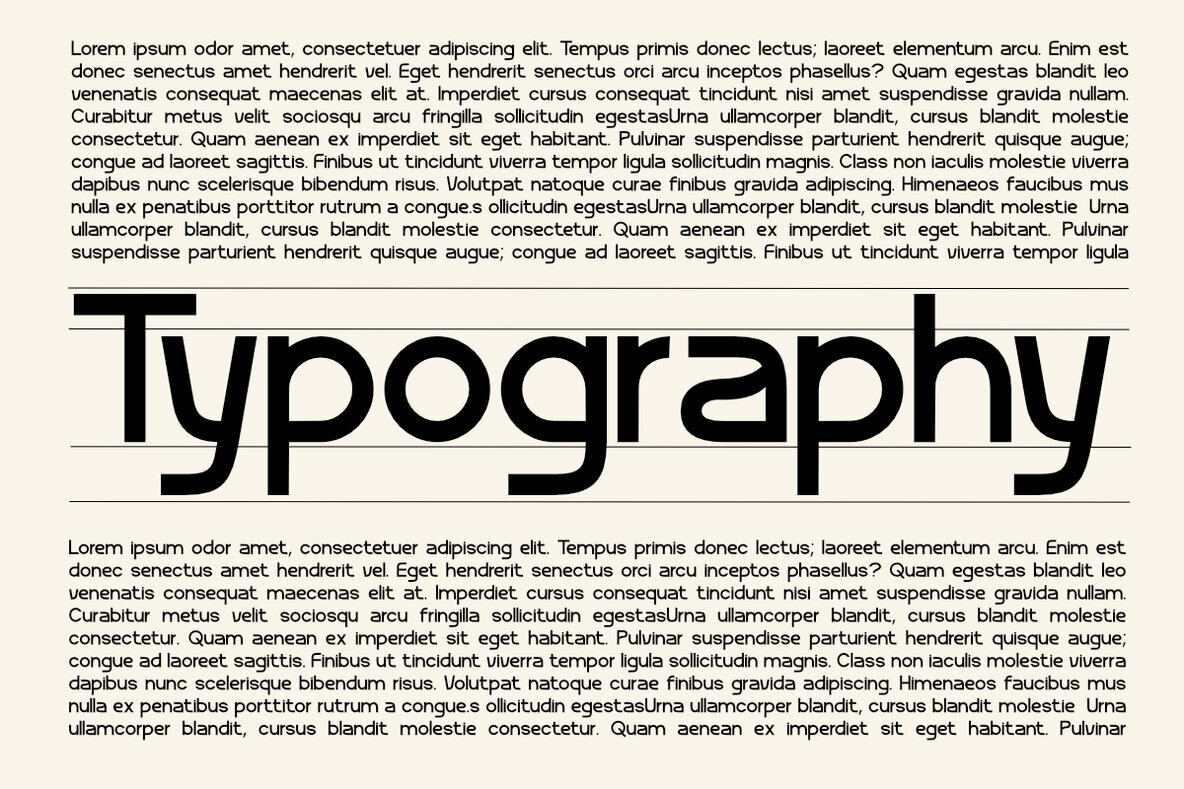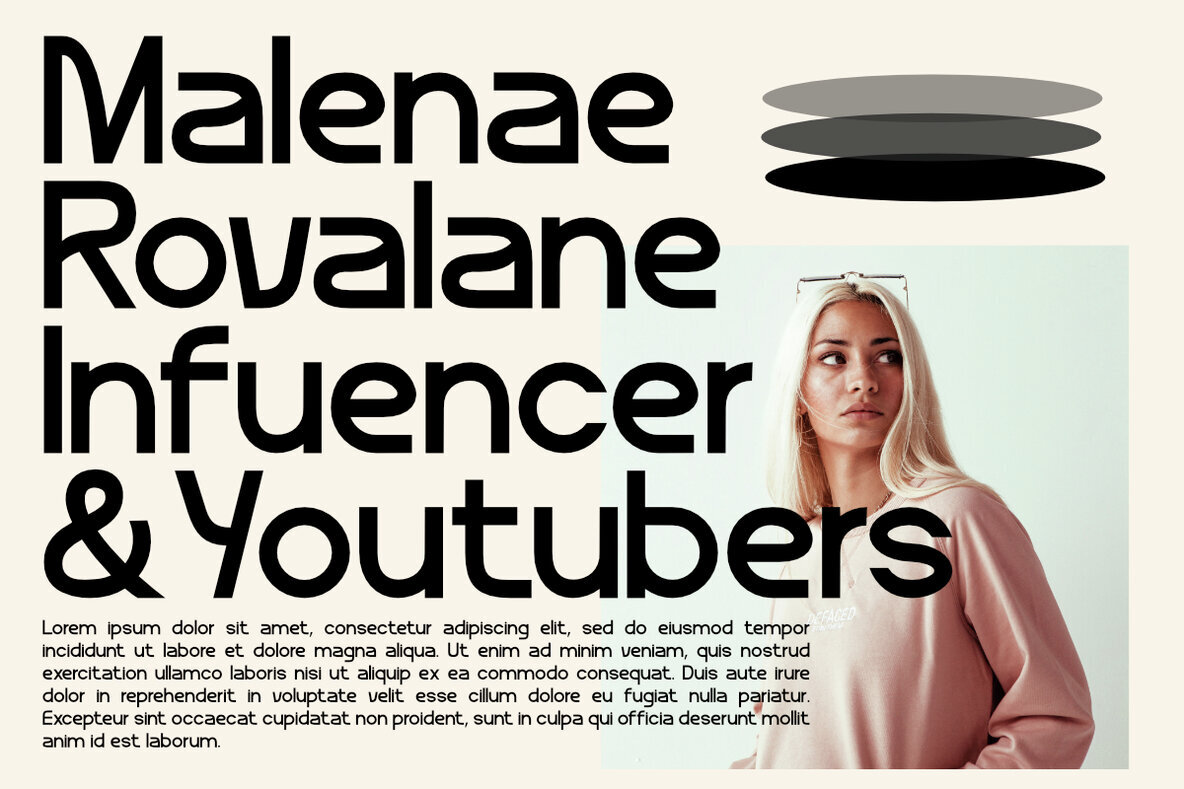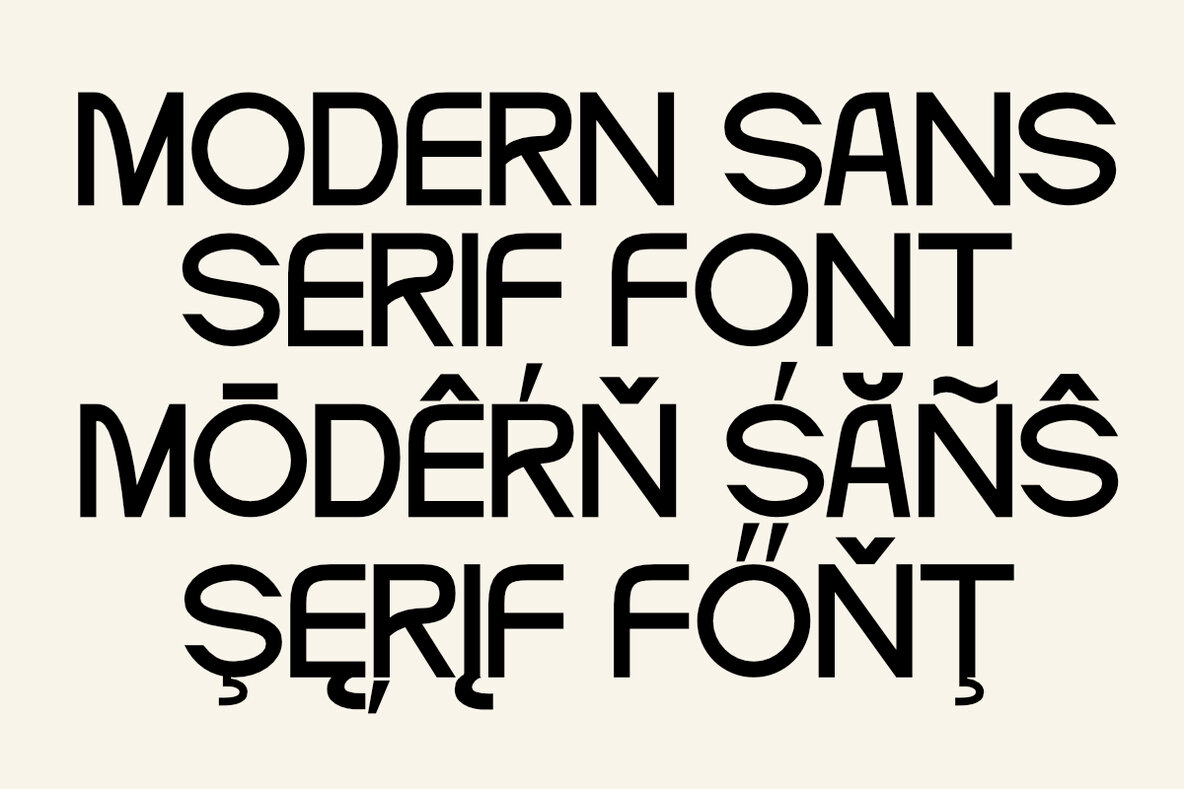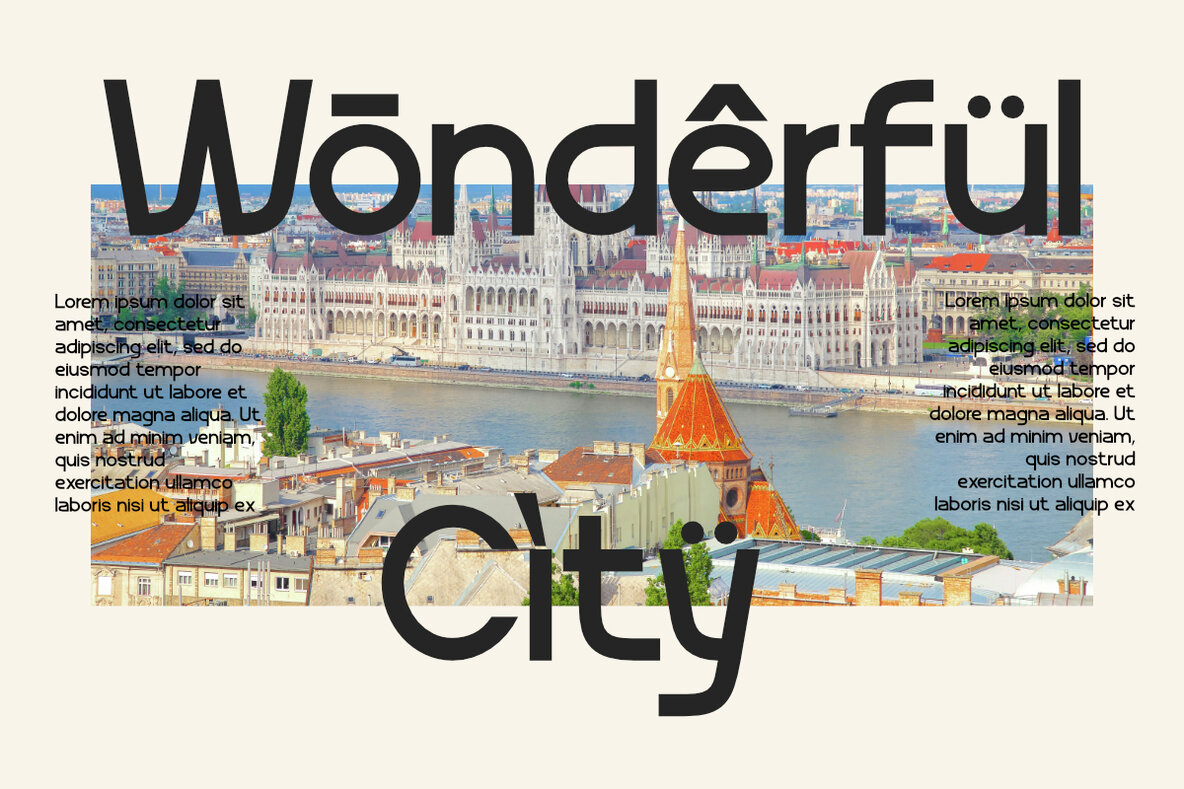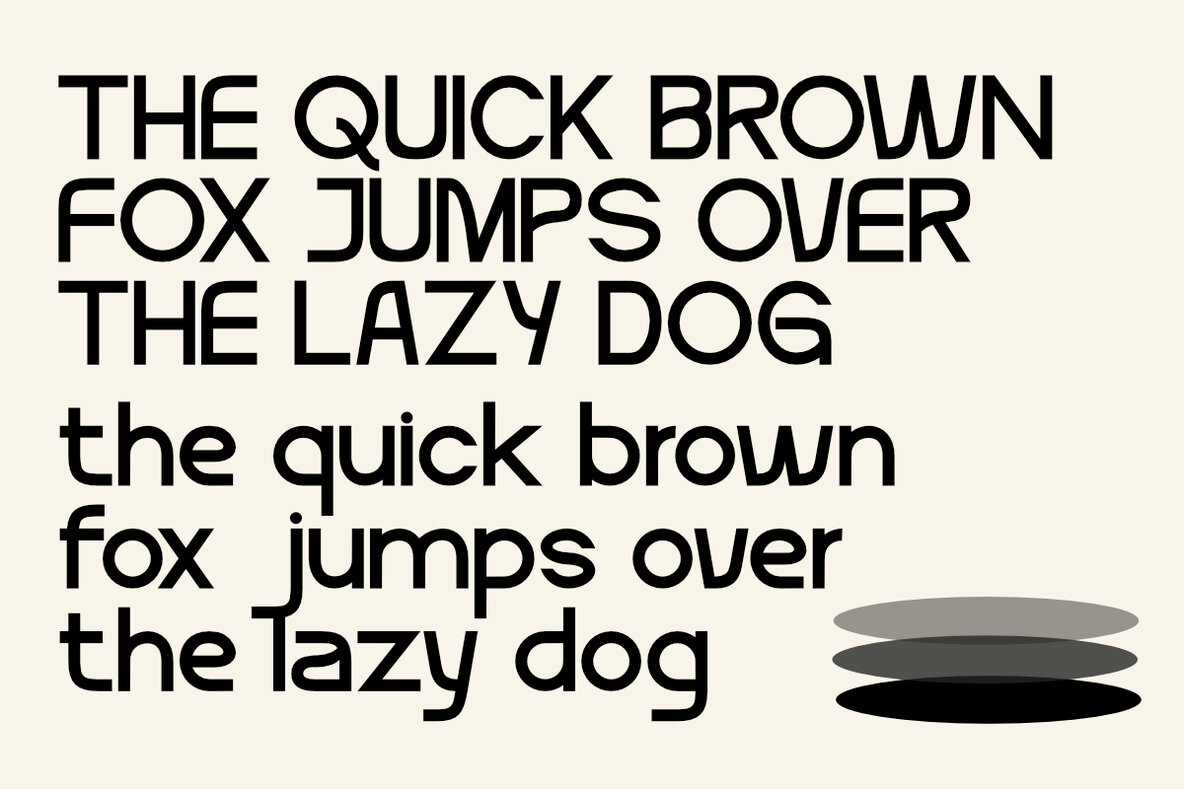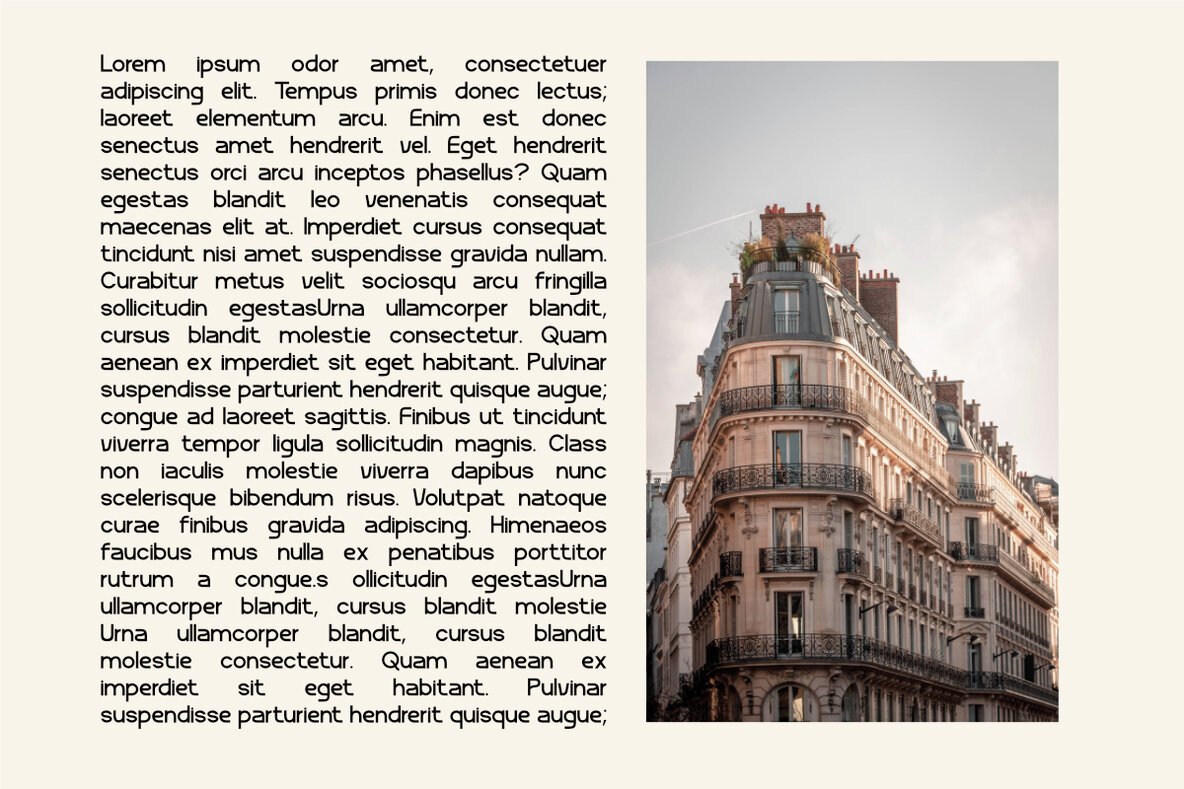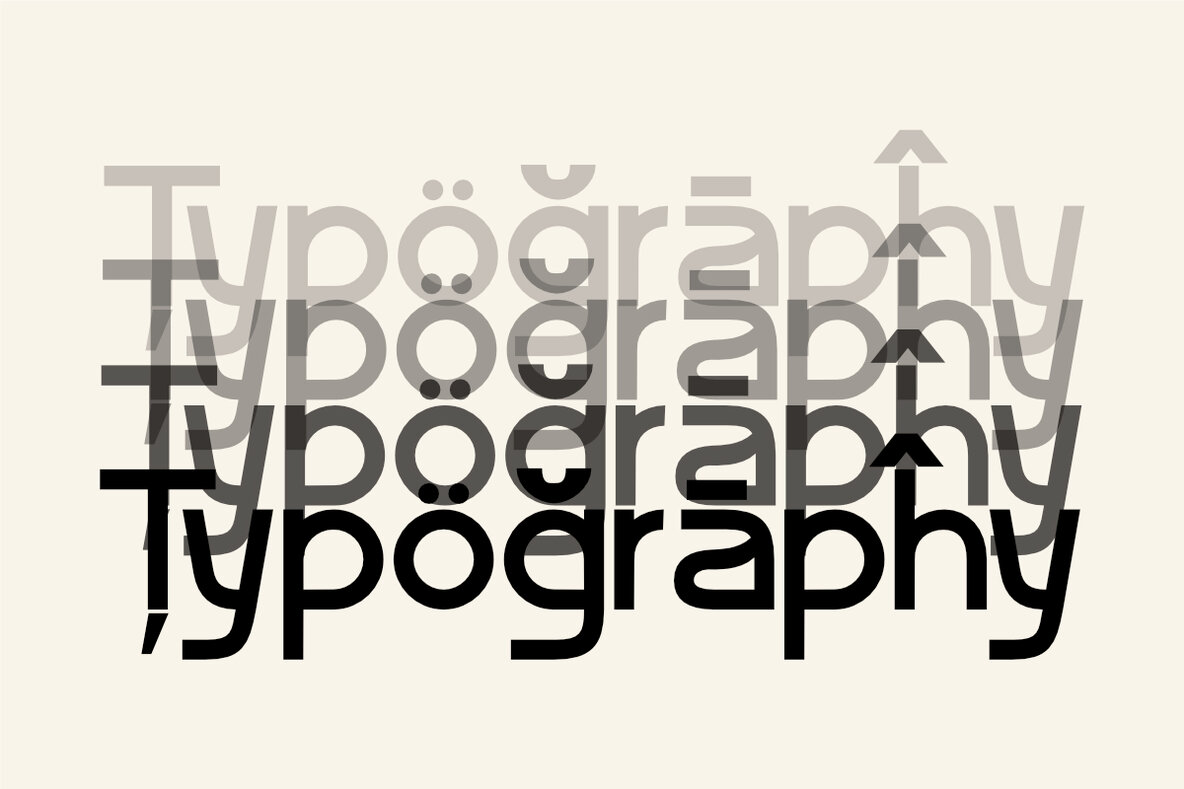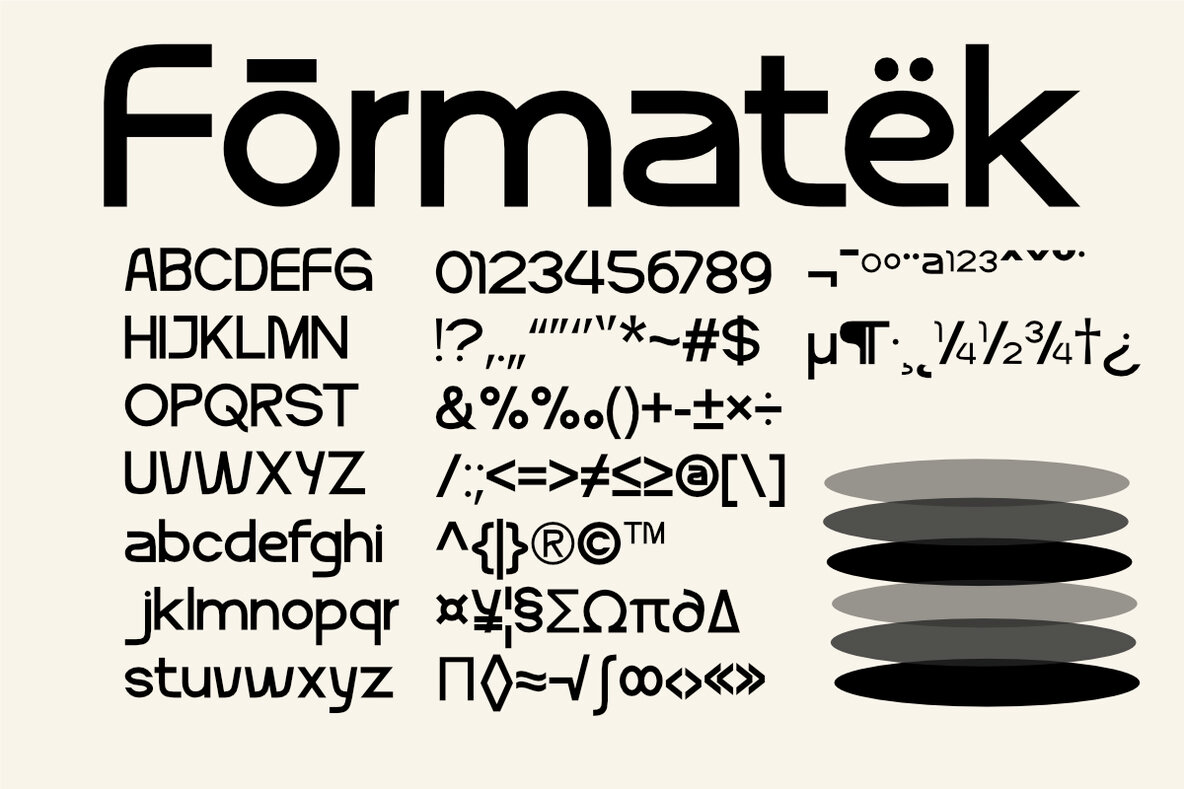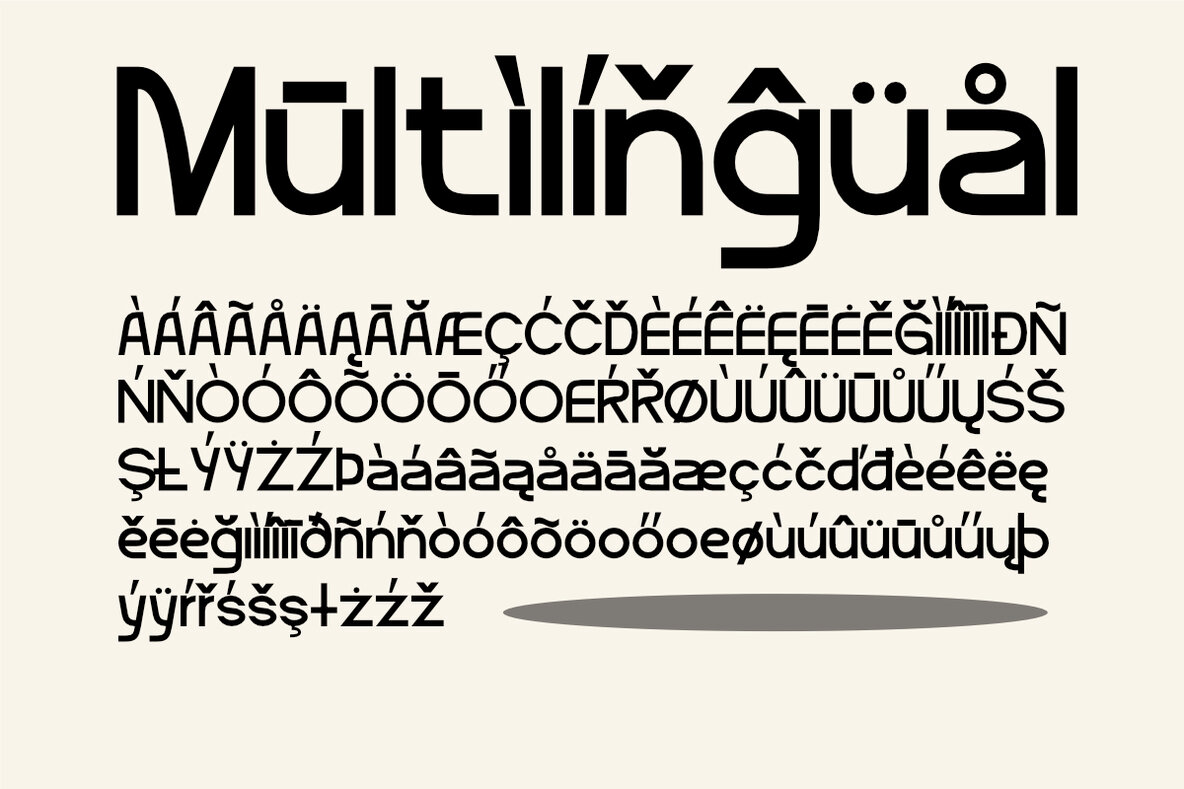
Formatek Font
Formatek Regular
Formatek is a modern geometric font that combines precision and simplicity in every curve. Designed to deliver a futuristic and technical look, Formatek offers clean and sharp letterforms, making it perfect for design projects that demand a modern, minimal, and professional feel. With balanced proportions and bold, striking lines, Formatek is well-suited for a variety of design applications, from branding and posters to digital interfaces that need an innovative and cutting-edge impression. Features: